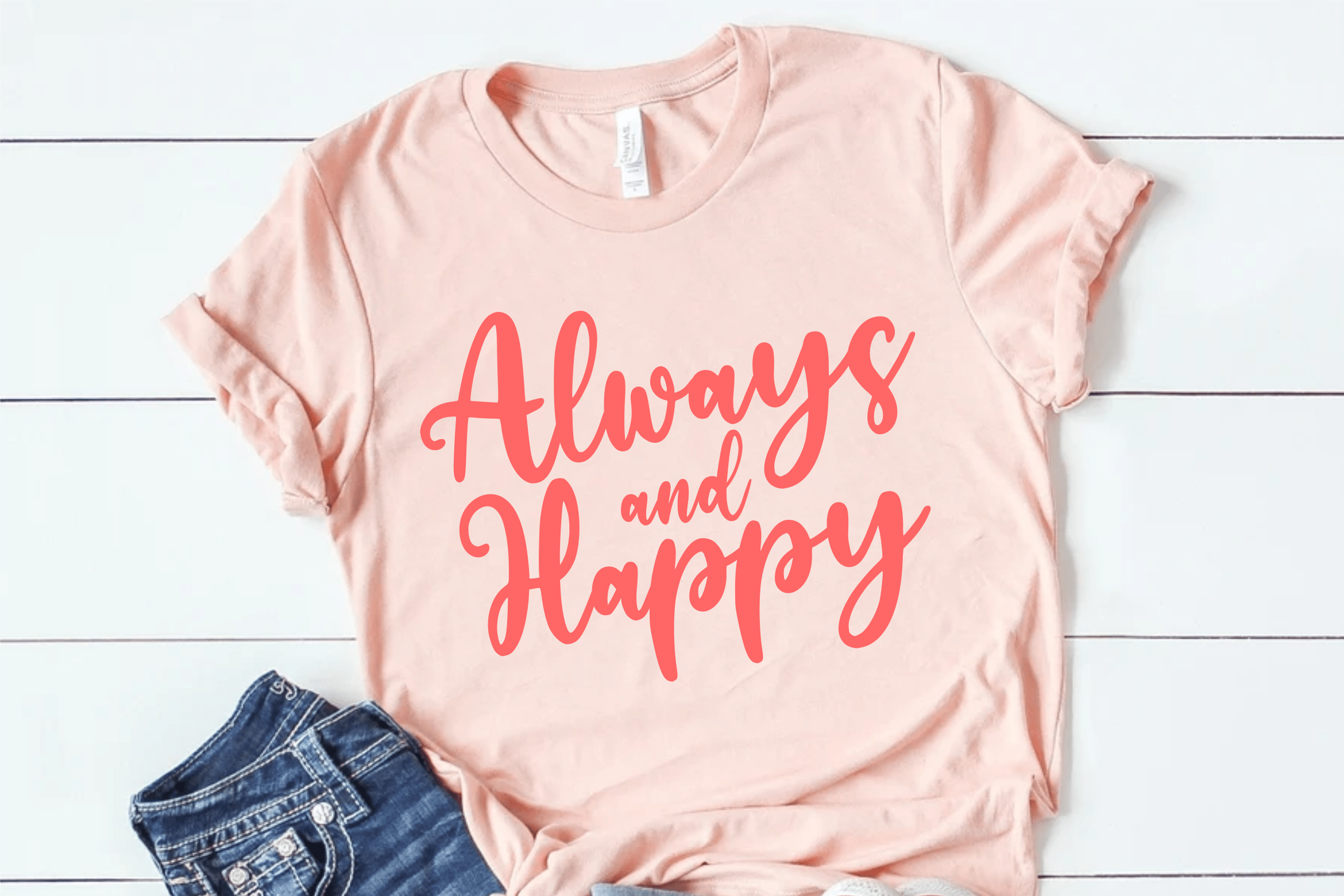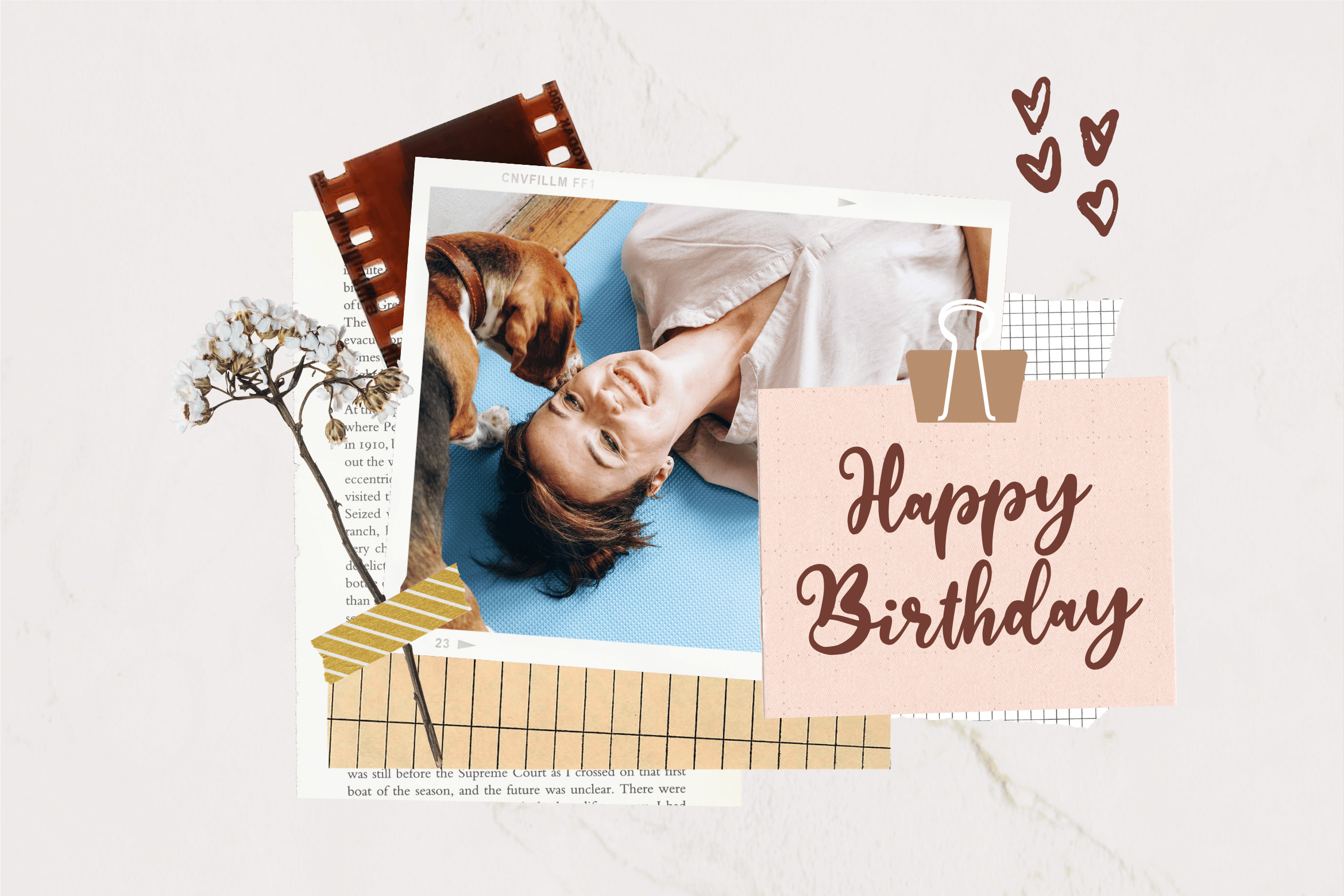
Olipeach Font
Olipeach Script Font
This is a lovely script font featuring charming, playful characters that seem to dance along the baseline. Add this font to your most creative ideas, and notice how it makes them stand out!